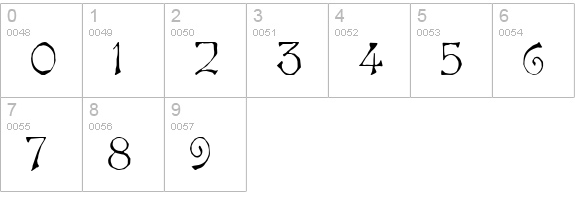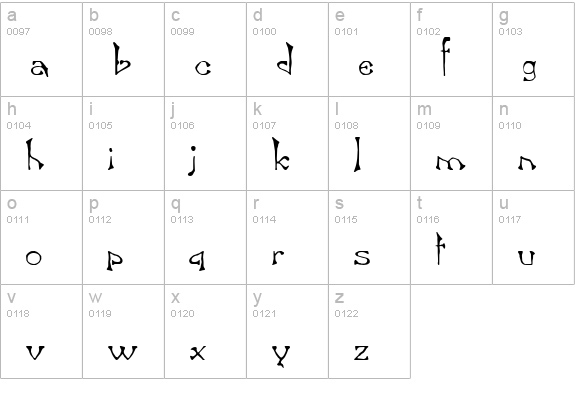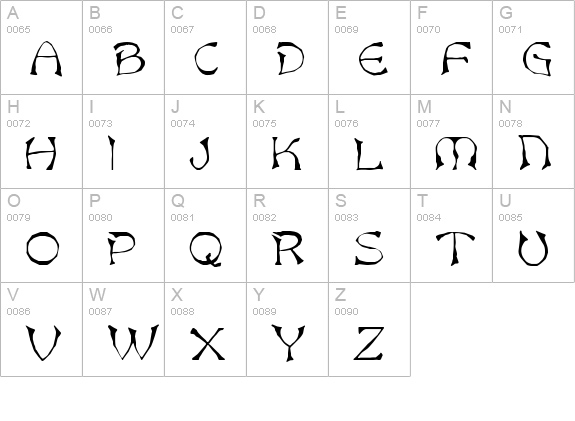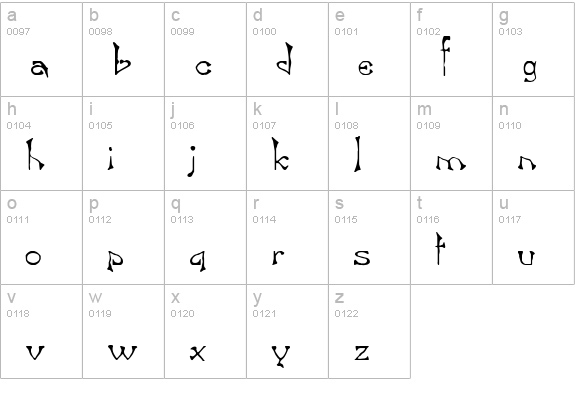
TR Bard Font Details
TR Bard font is a stylish and versatile typeface that exudes elegance and sophistication. With its unique design and graceful curves, this font is perfect for a wide range of projects, from branding to editorial design. The TR Bard font is a modern take on classic serif fonts, making it a timeless choice for any design need. What sets TR Bard font apart is not only its aesthetic appeal but also its versatility. Whether you're creating a logo, designing a website, or working on a print project, this font will elevate your design and give it a touch of class. Best of all, TR Bard font is available for free download at FontsMarket.com. This means you can start using this beautiful typeface in your projects without any cost. Don't miss out on the opportunity to enhance your designs with the TR Bard font - download it today and add a touch of sophistication to your work.